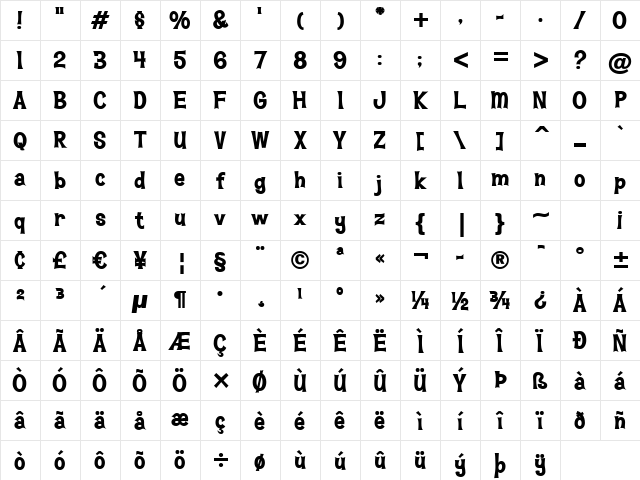
Hawaiian Aloha BTN XBd Regular
Design Context for Hawaiian Aloha BTN XBd
Hawaiian Aloha BTN XBd is a composed and adaptable typeface that performs quietly and consistently across a wide range of design contexts. Its bold stroke weight gives it real presence on the page.
Pro Tip: Use Hawaiian Aloha BTN XBd in both headline and body roles to test its range before committing to a single application.